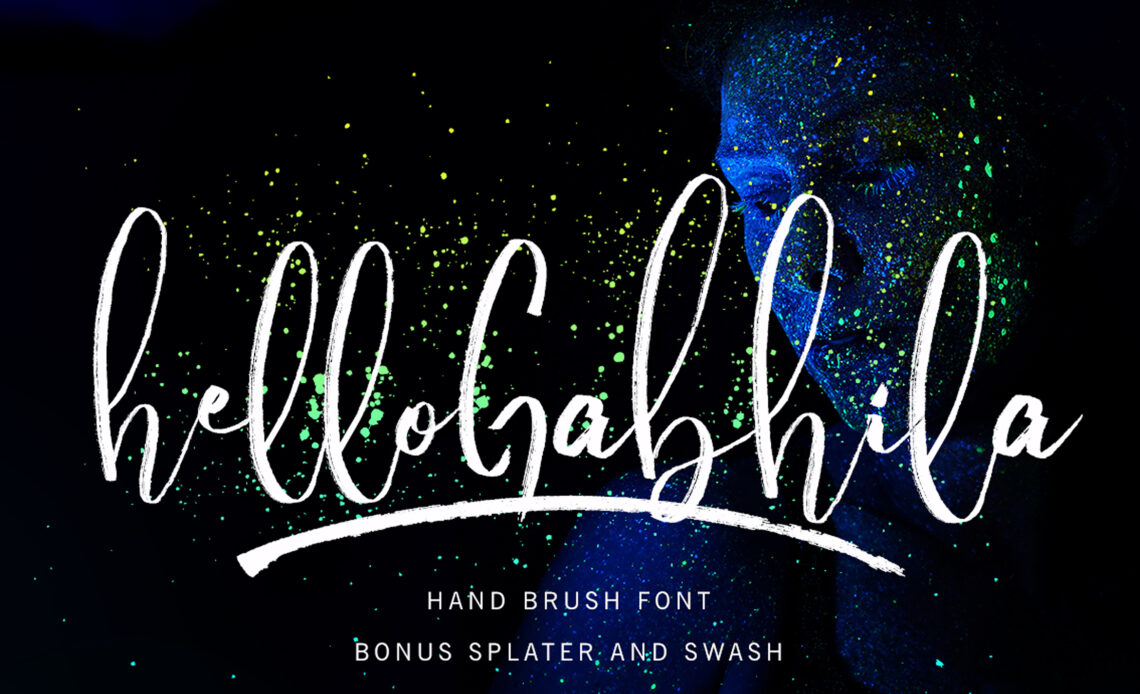
Hello Gabhila is the script font that brings together delightful duos to tell your story with a handwritten touch.
Imagine a summer breeze turning the pages, this font evokes nostalgic warmth through its casual and inviting style.
Add a touch of whimsy and playfulness to your invitations, greeting cards, social media posts, and make your words dance with joy!
This beautiful font even comes with a touch of magic - bonus swashes and splatters to add that extra touch of sparkle to your creations.
Feel the warmth of a summer breeze and the nostalgia of handwritten letters with Hello Gabhila, the script font designed to capture the essence of playful and heartfelt communication.